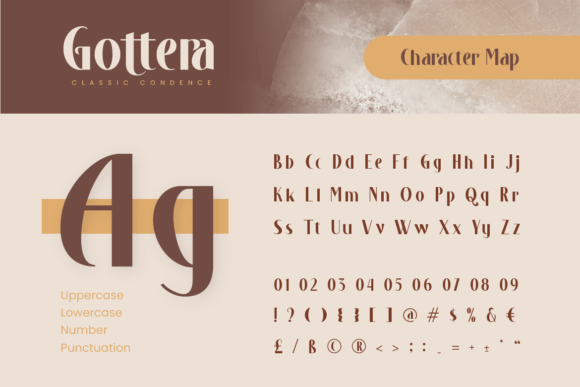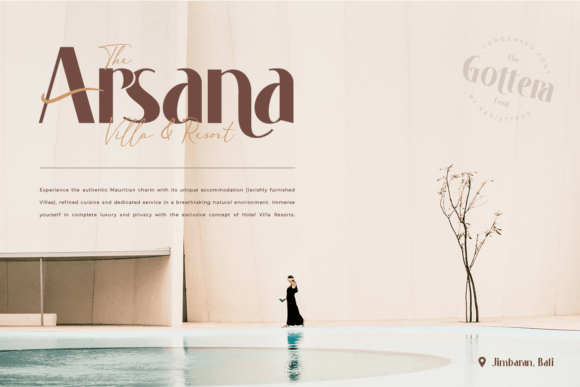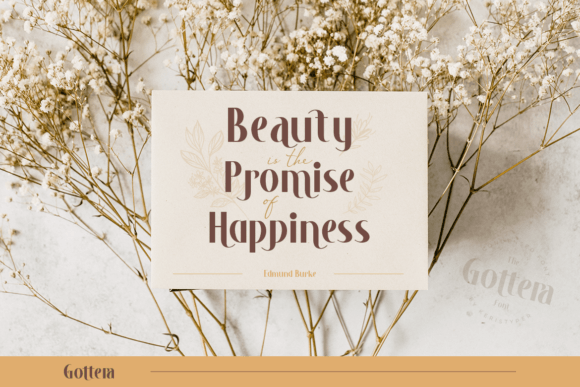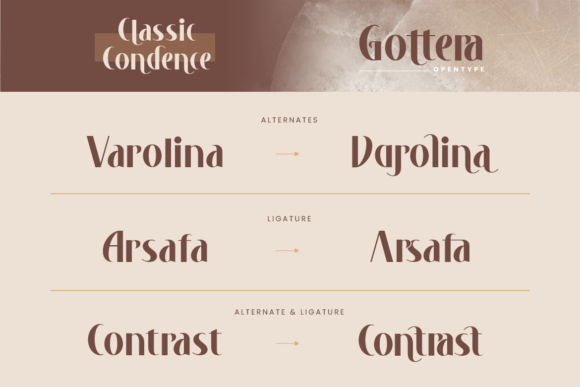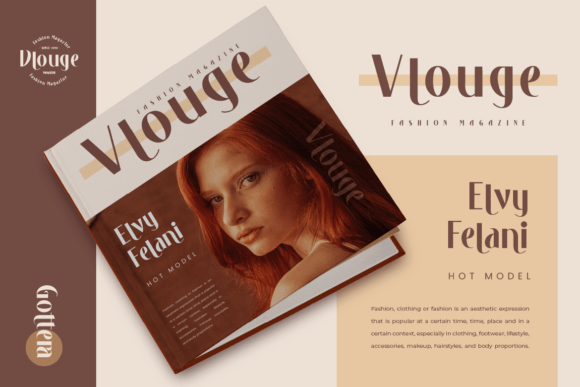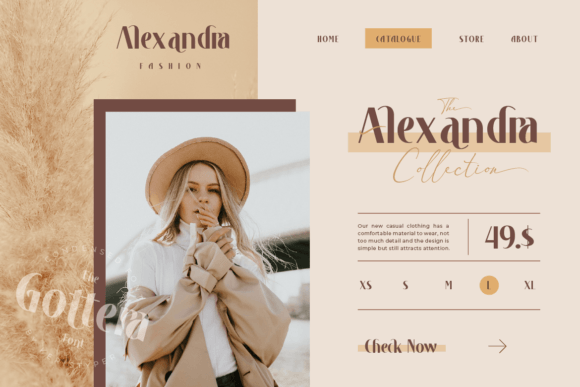
Introducing Gottera Font: Elevate Your Creations with Style and Elegance
Are you a designer, craftsperson, or simply a creative individual looking for a font that embodies both trendiness and timeless elegance? Look no further than Gottera Font, a stunning condensed sans serif font that is sure to elevate each of your creations. With its smooth curves and visually appealing aesthetic, Gottera Font is the perfect addition to your typographic arsenal.
What is Gottera Font?
Gottera Font is a carefully crafted condensed sans serif font, designed to bring a touch of sophistication and style to your designs. Its sleek and modern aesthetic makes it an ideal choice for a wide range of creative projects, from branding and advertising to packaging and digital media. Whether you’re working on a logo, brochure, or social media graphic, Gottera Font is sure to make a lasting impression.
Key Features of Gottera Font
- Condensed Sans Serif: Gottera Font boasts a sleek and streamlined design, perfect for creating visually appealing text that won’t overwhelm your design.
- Smooth Curves: The font’s smooth curves add a touch of elegance and sophistication, making it perfect for high-end designs and luxury brands.
- Trendy and Stylish: Gottera Font is designed to be on-trend and stylish, ensuring your designs look modern and fresh.
- Highly Versatile: This font is suitable for a wide range of creative projects, from digital media to print materials.
Why Choose Gottera Font?
With so many fonts available, why choose Gottera Font for your next project? Here are just a few compelling reasons:
- Unique Aesthetic: Gottera Font offers a distinctive and eye-catching aesthetic that will set your designs apart from the crowd.
- Ease of Use: This font is incredibly easy to read and use, making it perfect for body text and headlines alike.
- Scalability: Gottera Font is designed to be highly scalable, ensuring it looks great in any size or application.
- Timeless Appeal: Unlike trendy fonts that quickly go out of style, Gottera Font has a timeless appeal that will ensure your designs remain stylish for years to come.
How to Use Gottera Font in Your Designs
Ready to incorporate Gottera Font into your creative workflow? Here are a few tips to get you started:
- Pair with Other Fonts: Experiment with pairing Gottera Font with other fonts to create visually interesting and dynamic text combinations.
- Use for Headlines and Titles: Gottera Font is perfect for headlines and titles, where its bold and stylish aesthetic can really shine.
- Apply to Digital Media: This font is well-suited to digital media, including social media graphics, website headers, and more.
- Add to Your Brand Identity: Consider incorporating Gottera Font into your brand identity, where its unique aesthetic can help establish your brand’s visual personality.
| Font Name | Gottera Font |
| Author | Keristyper |
In conclusion, Gottera Font is a stylish and elegant condensed sans serif font that is sure to elevate your creative projects. With its smooth curves, trendy aesthetic, and high versatility, this font is perfect for designers, craftspersons, and creatives of all kinds. Whether you’re working on a branding project, digital media, or simply looking for a font to add some style to your designs, Gottera Font is an excellent choice.